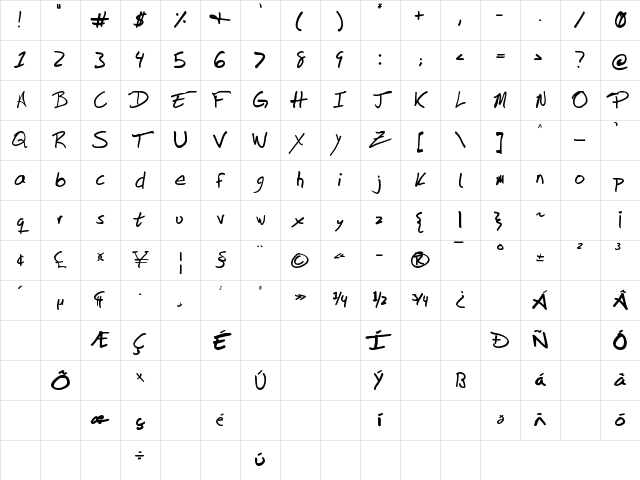
DuntonWriting Regular
Design Context for DuntonWriting
DuntonWriting is a composed and adaptable typeface that performs quietly and consistently across a wide range of design contexts.